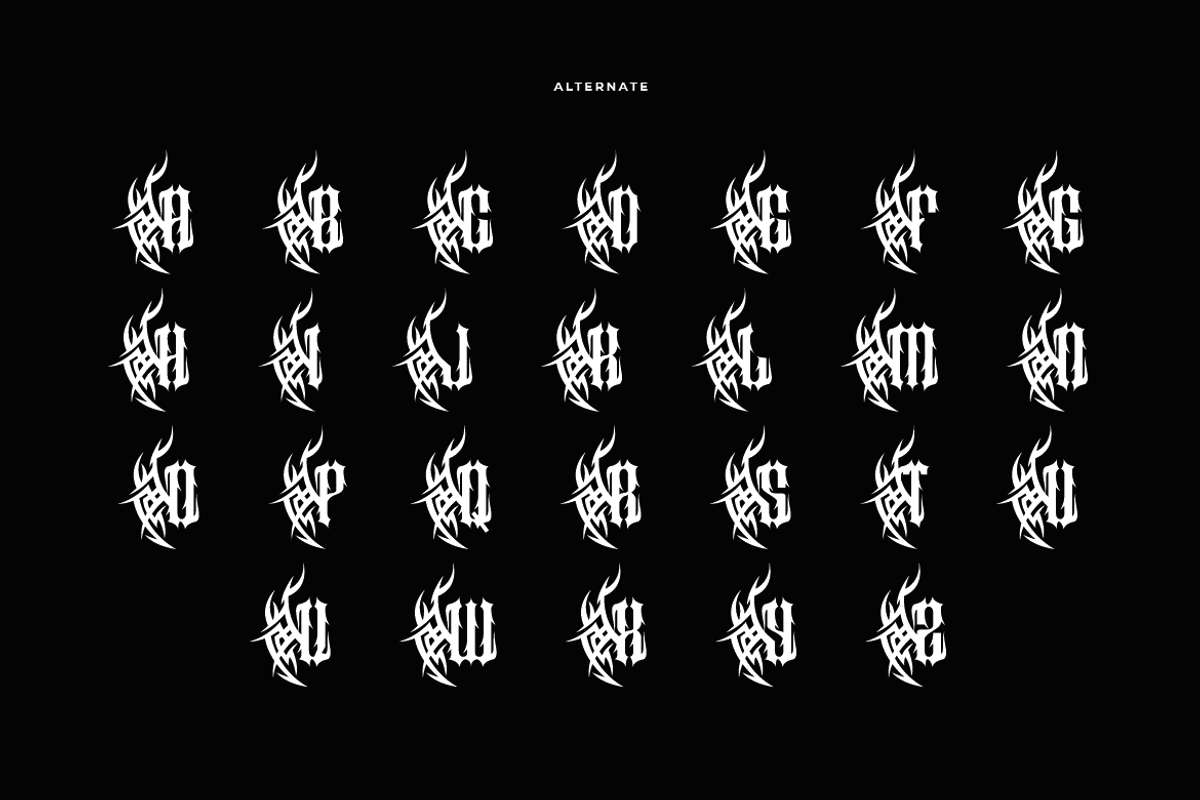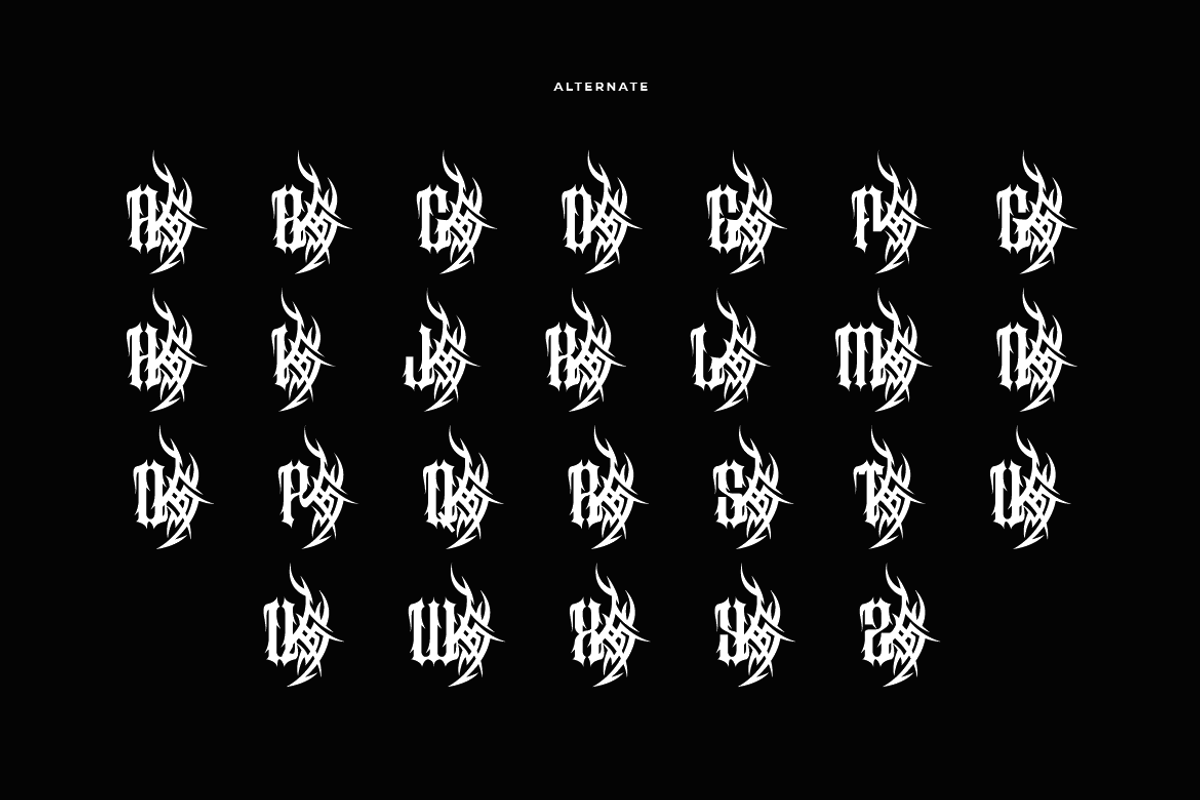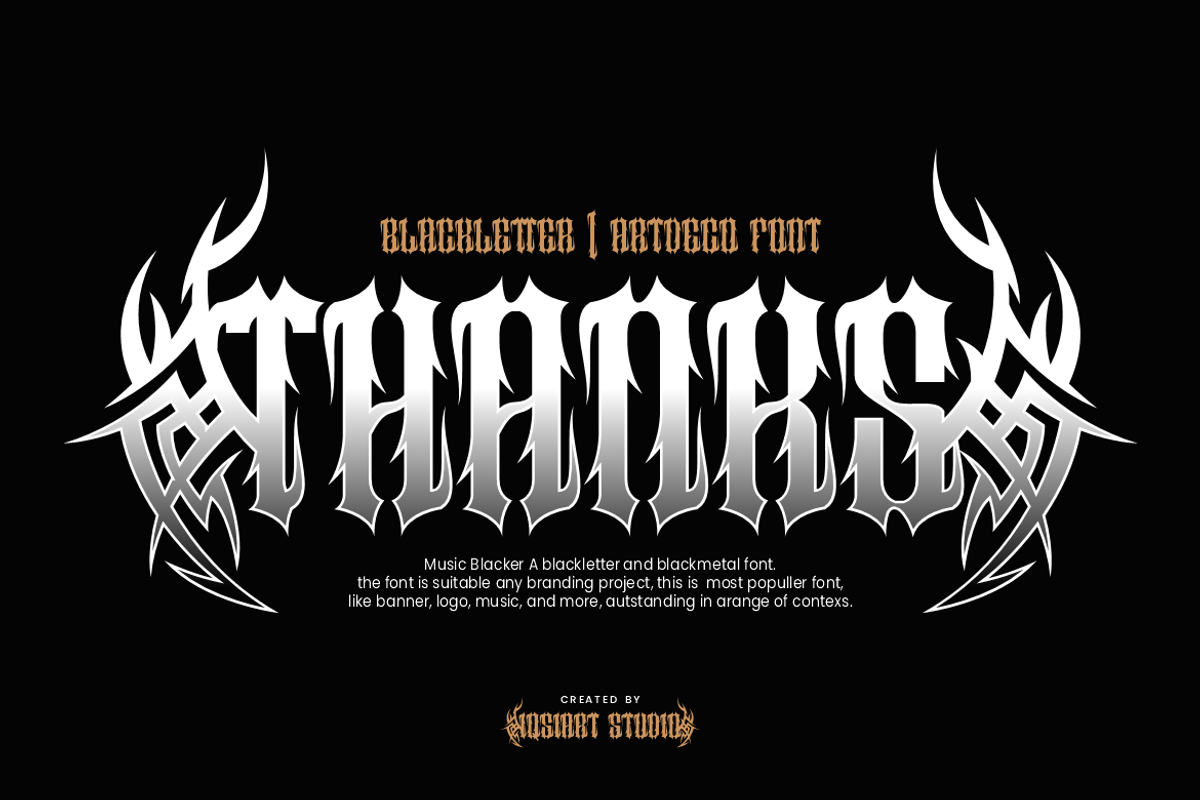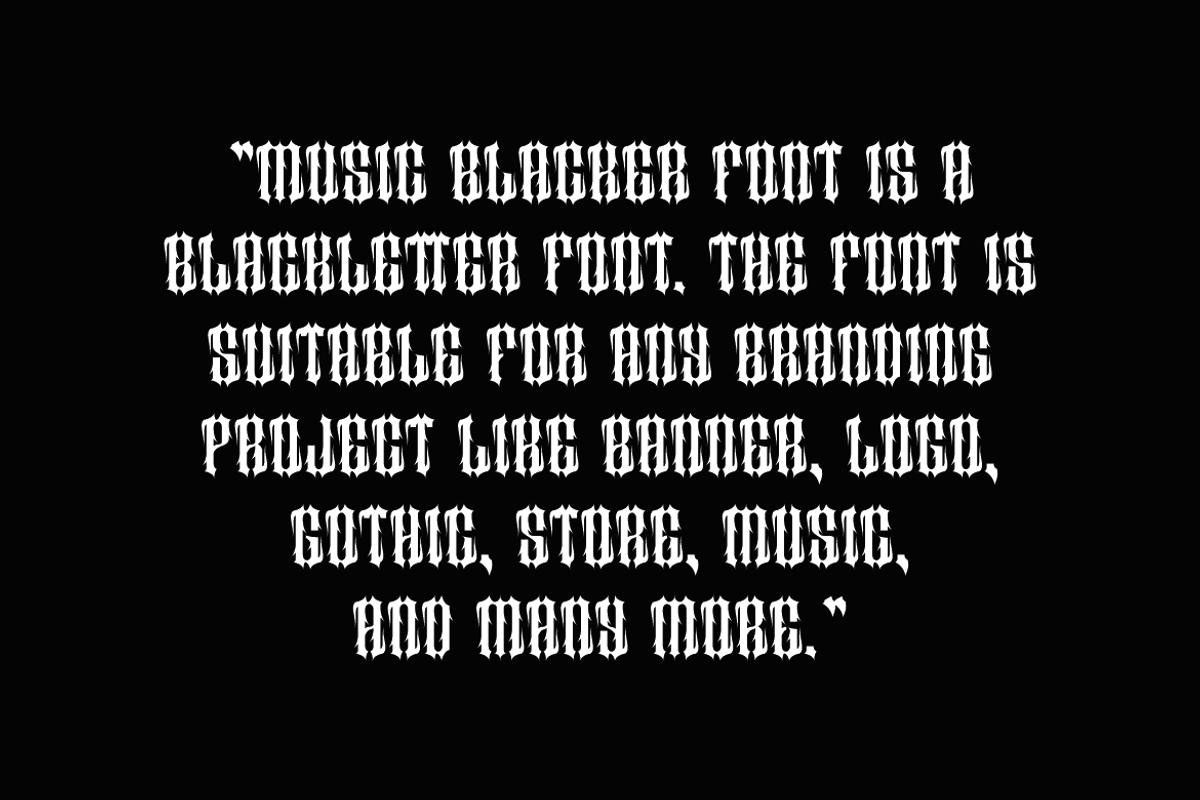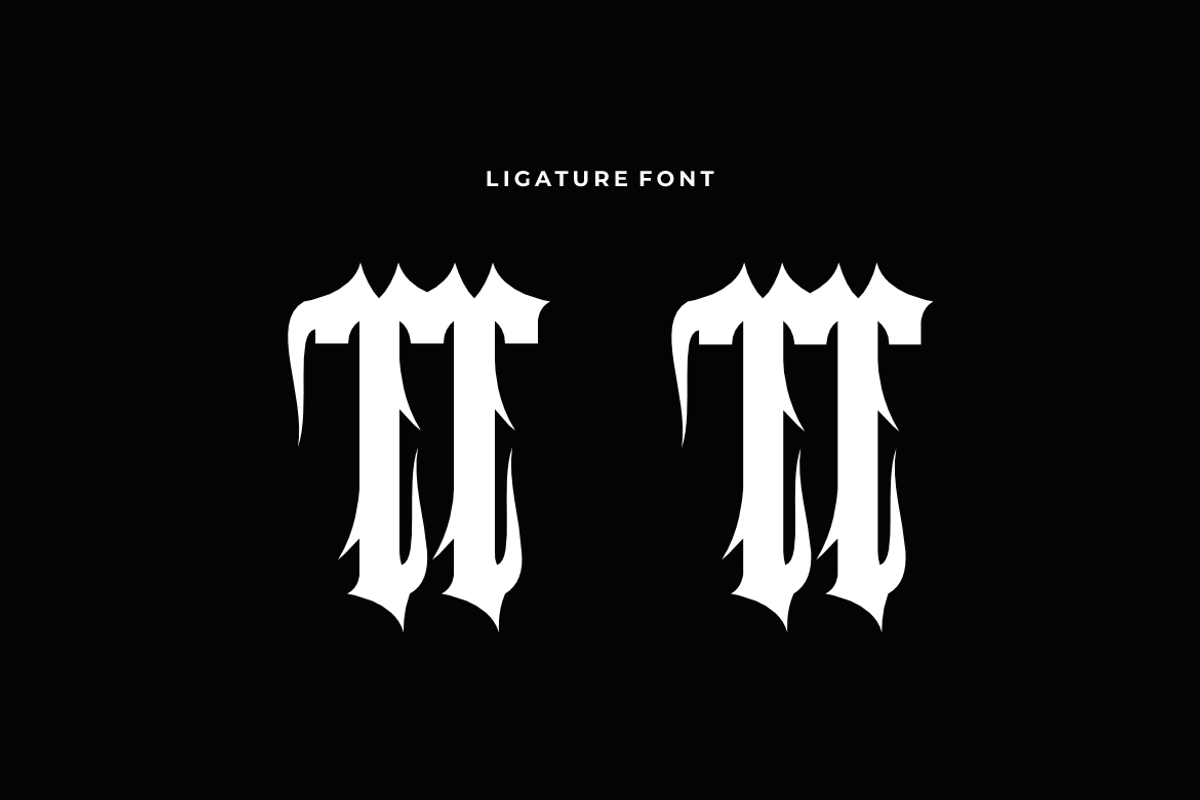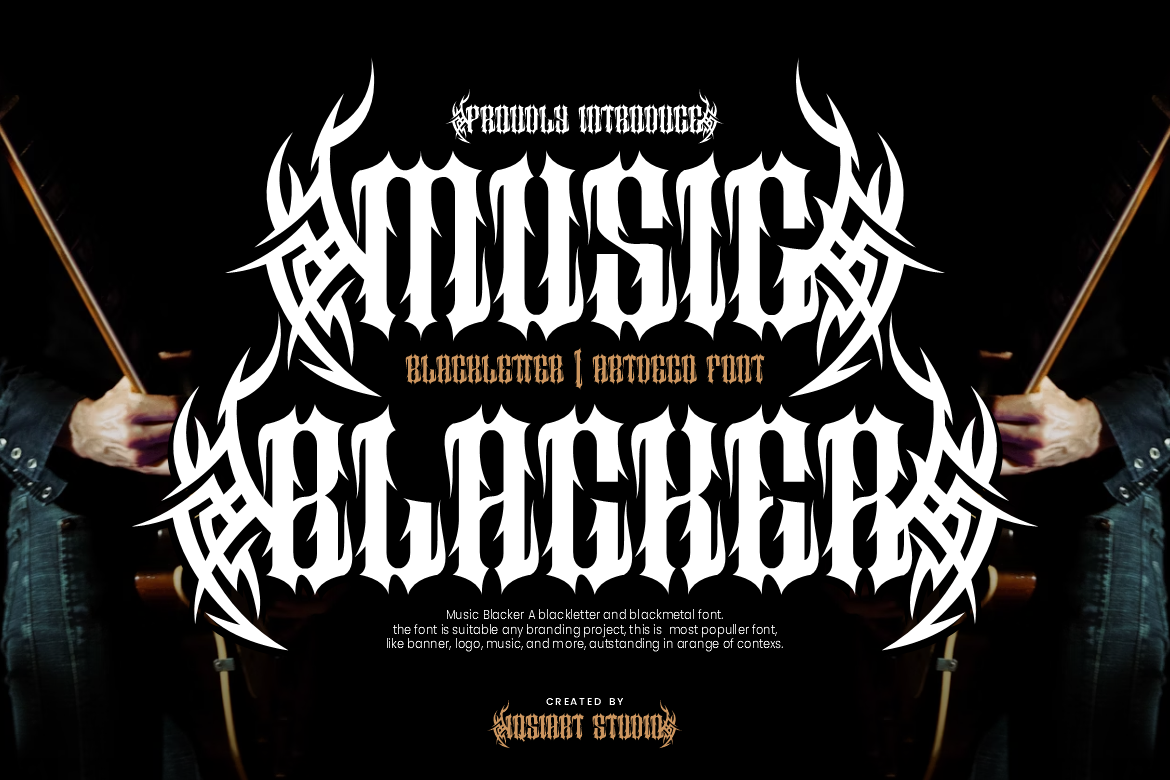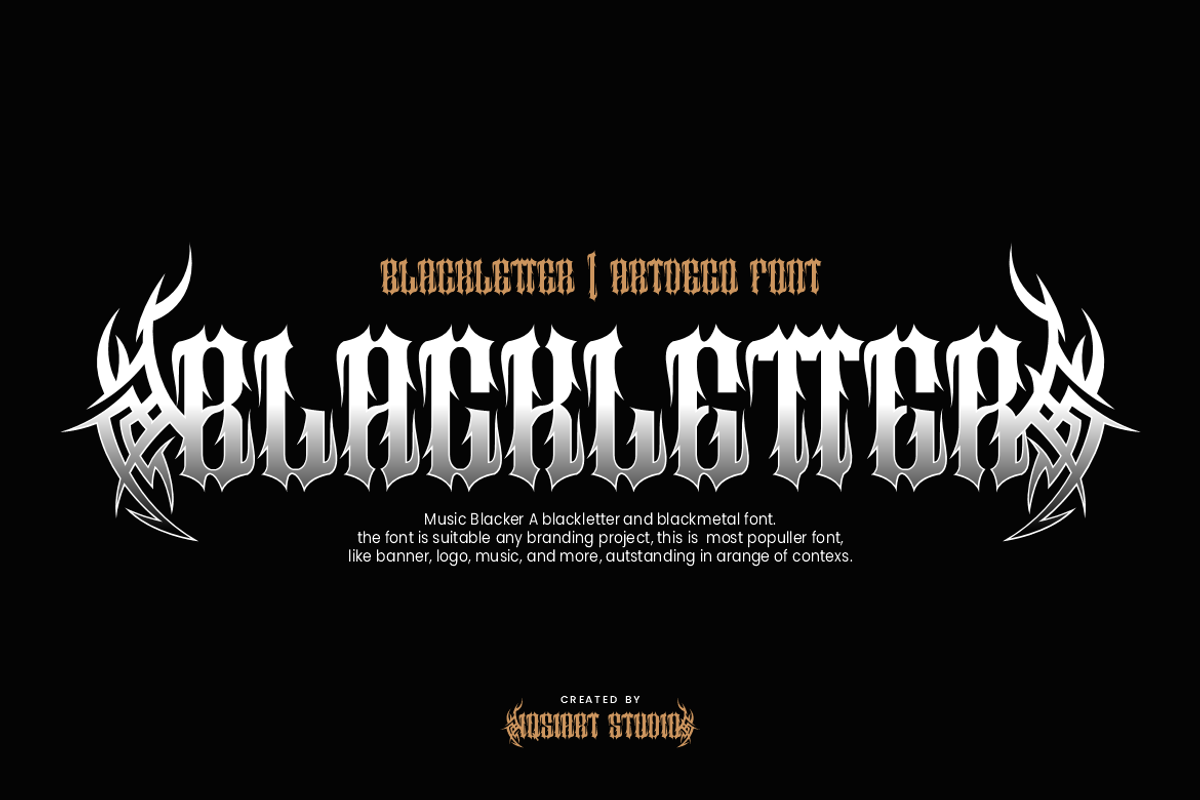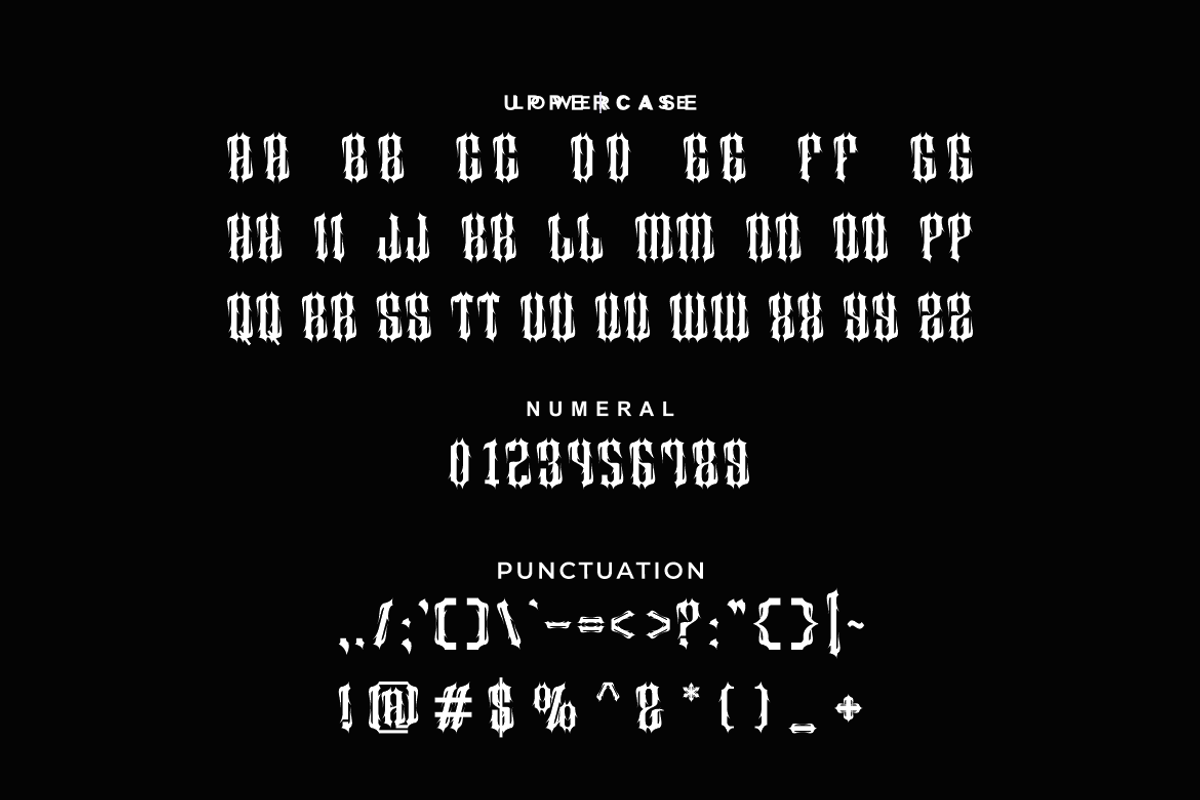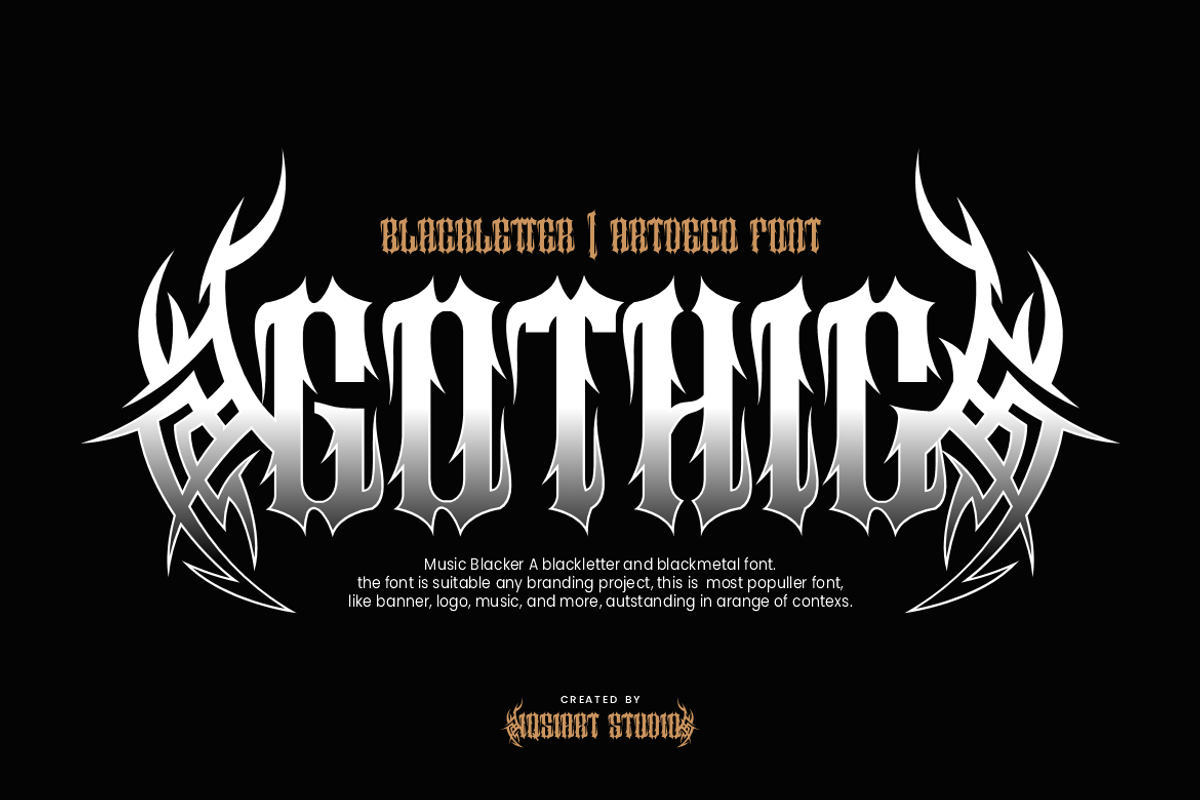
Music Blacker - Gothic Font
Music Blacker Font is a best and authentic display font. This font can be used for your various needs. We provide various themes and font styles. visit our profile to get a wide variety of themes and different font styles you need.